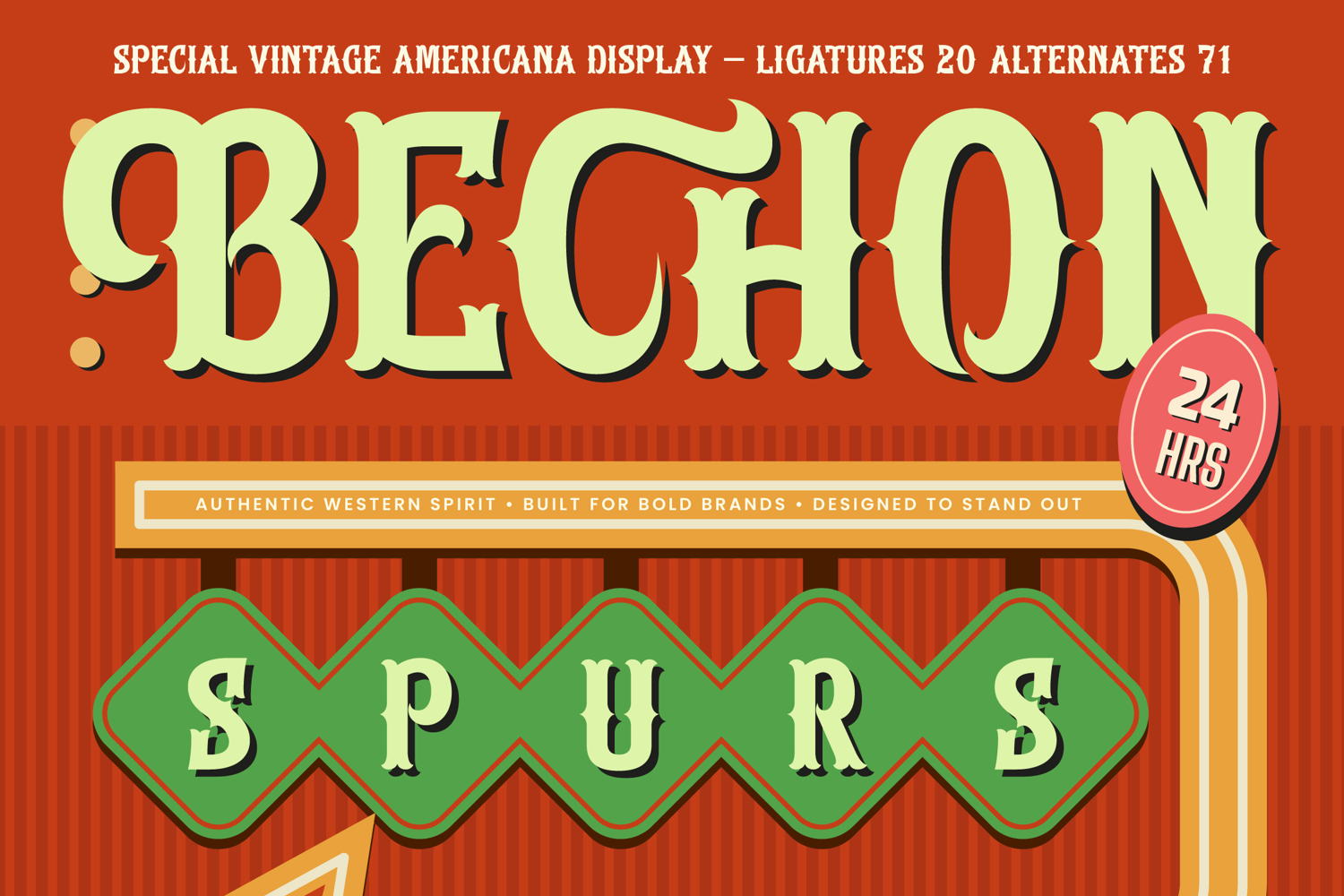
Bechon Spurs Special Vintage Americana Display
Bechon Spurs – Special Vintage Americana Display
Reclaim the golden era of iconic signage with a typeface that captures the authentic Western spirit and bold brand presence. Bechon Spurs – Special Vintage Americana Display stands as a definitive tribute to mid-century artistry, blending ornate spurred serifs with a robust silhouette that demands attention. Featuring 20 ligatures and 71 alternates, this font provides designers with the tools to create custom lettering that feels handcrafted and heritage-driven.
Bridge the gap between historical charm and modern global functionality to ensure your message resonates across borders. With its extensive multilingual support, Bechon Spurs – Special Vintage Americana Display adapts seamlessly across global markets, making it incredibly versatile for international projects. Whether you are targeting a local boutique or a worldwide audience, the typeface maintains its visual integrity and legibility in every linguistic context.